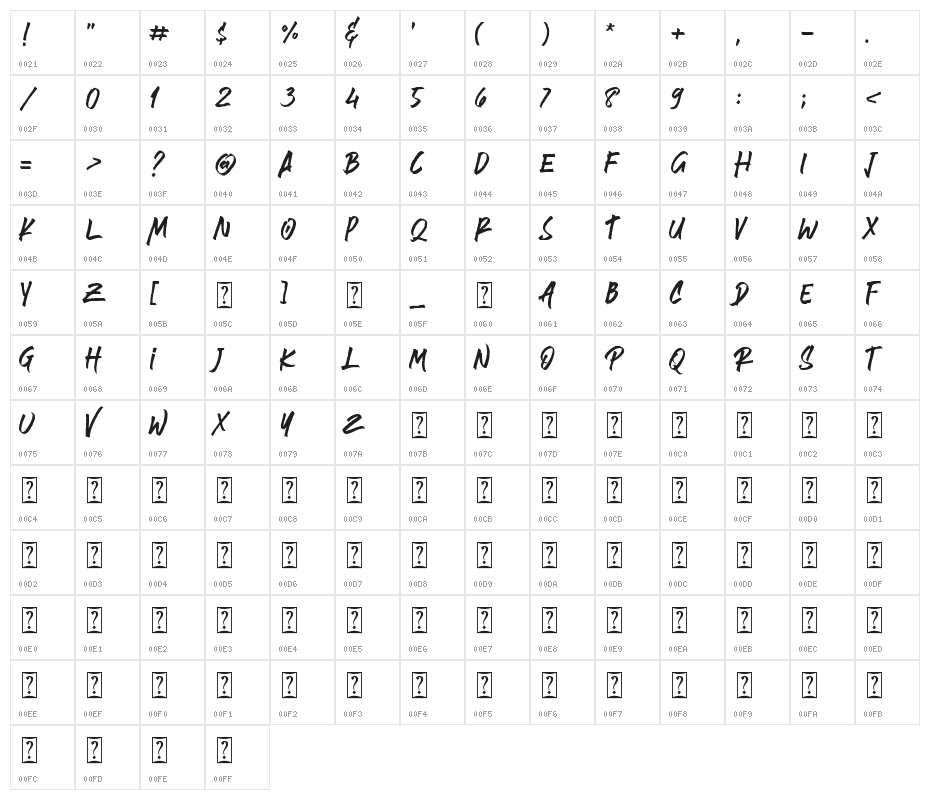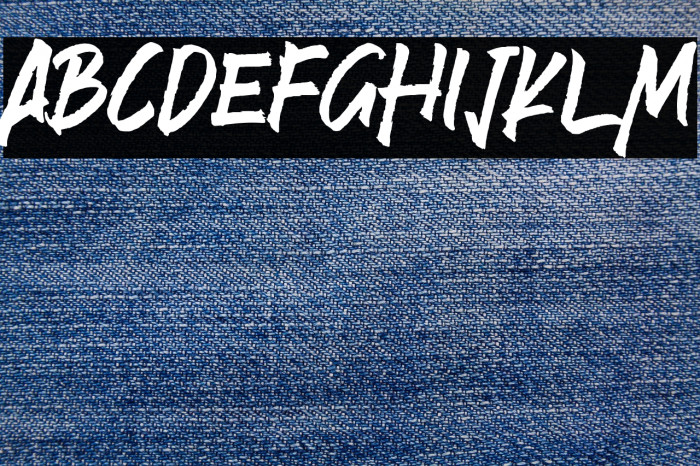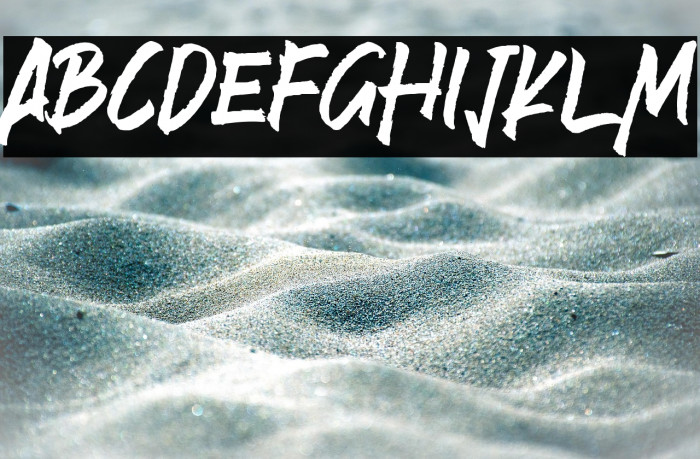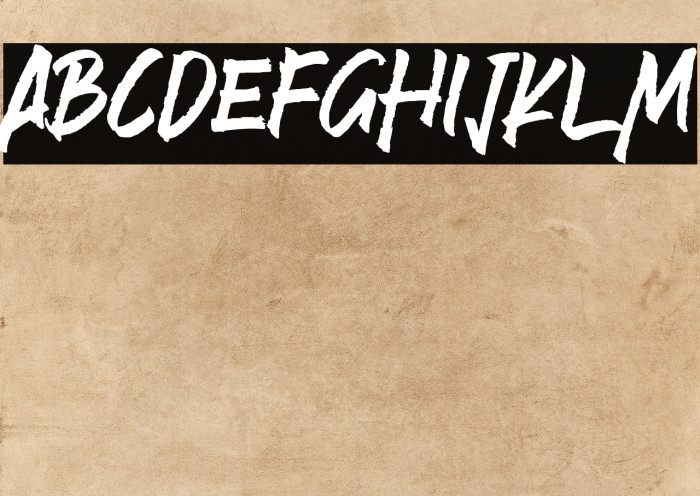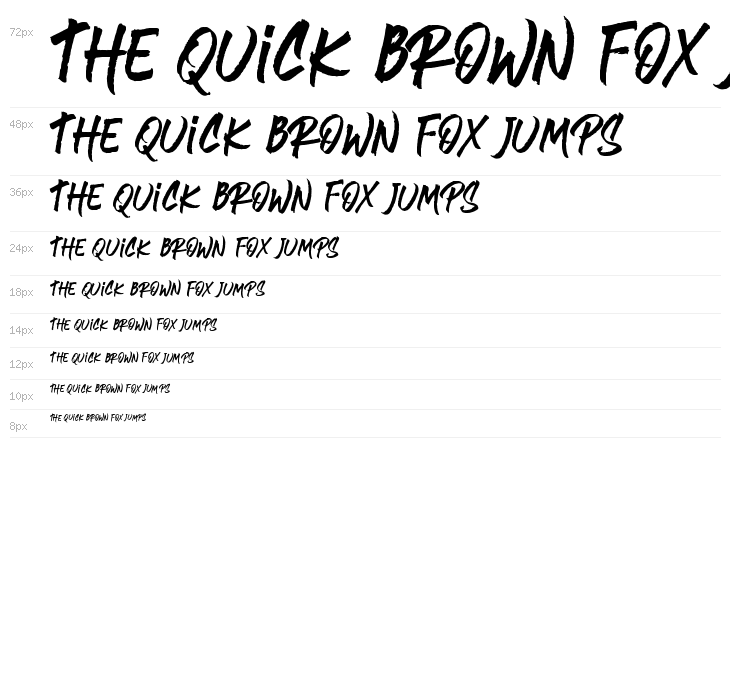
Brushlie Solid Demo Font
Brushlie Solid Demo Description
This font exudes a bold and energetic style, characterized by its brush-like strokes that give it a dynamic and handcrafted appearance. The letters are slightly slanted, adding to the sense of movement and fluidity. The uppercase and lowercase letters maintain a consistent style, with thick and expressive lines that vary in width, creating a sense of artistic flair. The numbers and special characters follow the same design principles, ensuring a cohesive look across all elements. This font is perfect for projects that require a personal touch or a creative edge, such as branding, posters, or artistic designs.
Use CaseLogos, Headlines, Artistic designs
Proposed ProjectsIdeal for branding, posters, artistic designs, and creative projects.